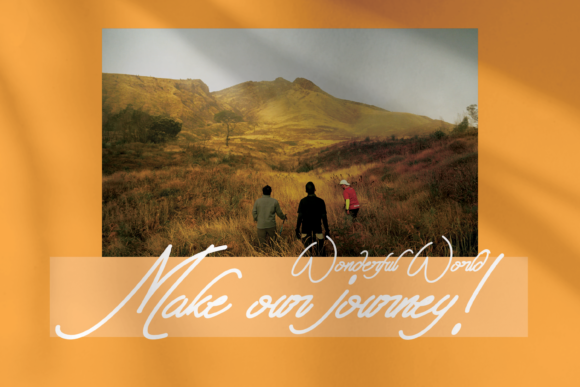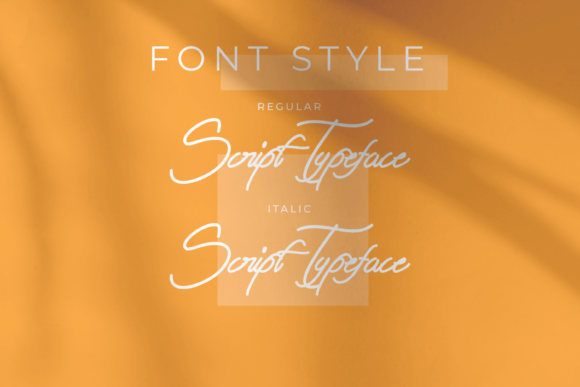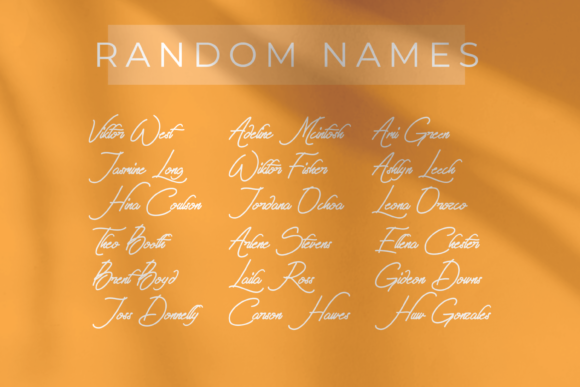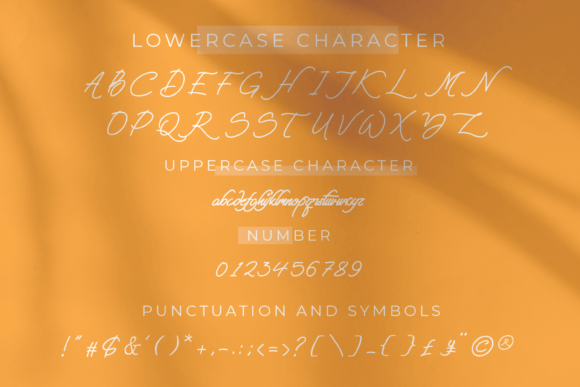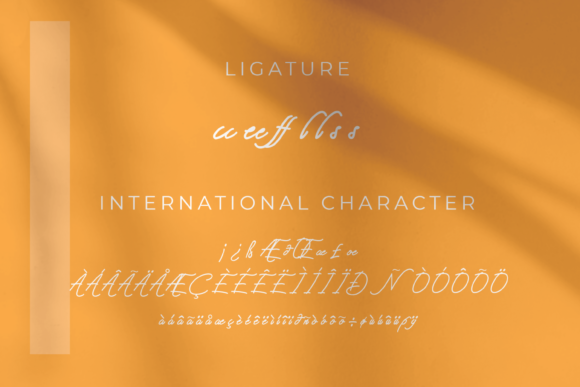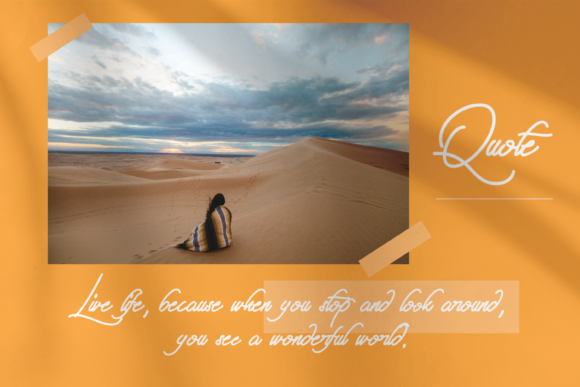
Introduction to Herind Arabic Font
Herind Arabic is a superb handwritten font, beautifully designed with a touch of elegance and charm.
It is perfect for any projects that need to look exquisite and authentic .
Key Features of Herind Arabic Font
Why Choose Herind Arabic Font?